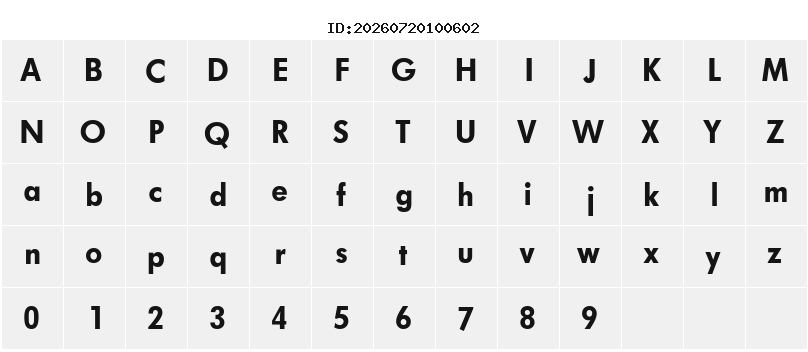
FutoralBlackDB Preview
• Font Name: FutoralBlackDB
About FutoralBlackDB.ttf
FutoralBlackDB.ttf is a modern, elegant sans-serif font designed for ultimate readability and visual harmony. Perfect for branding, headlines, web design, and print materials.